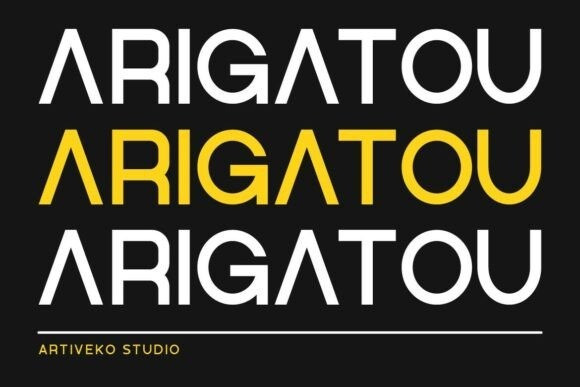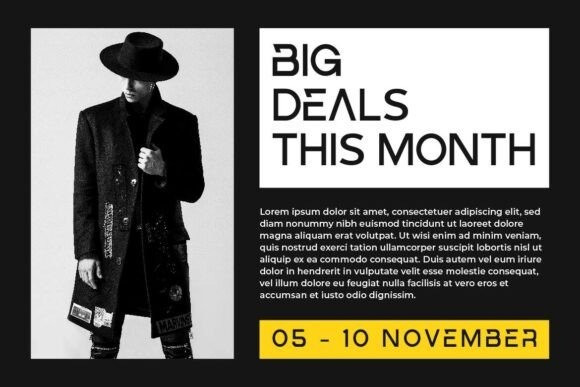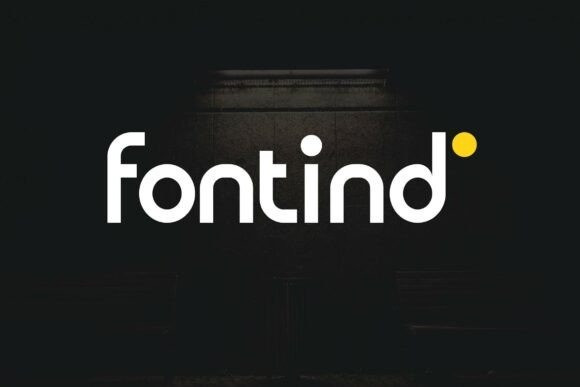
Fontind Font
Fontind Font is a modern geometric sans serif typeface characterized by clean curves, low contrast, and minimalist precision. Designed with versatility in mind, it combines soft terminals and monoline strokes to deliver a sleek, contemporary aesthetic. Its uniform proportions and rounded forms make it ideal for branding, tech interfaces, editorial layouts, and logo design.
The subtle balance between friendliness and structure allows Fontind to maintain clarity at all sizes, while its distinctive “d” and dot detail add a refined visual signature. Perfect for designers seeking a bold yet elegant voice in modern typography.